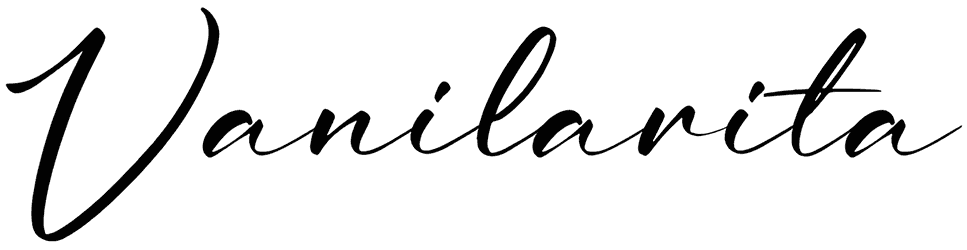
Vanilarita Font
To qualify for an invitation, wedding card, greeting, or apparel design project, having Vanilarita can significantly help you. This feminine font has interlocking letters with a rhythmic melody that can help you shine in informal tasks.
Use this script font anywhere that requires more focus, because it is difficult and time-consuming to read. So if you want the reader to pause on your content, Vanilarita will be perfect for your needs.